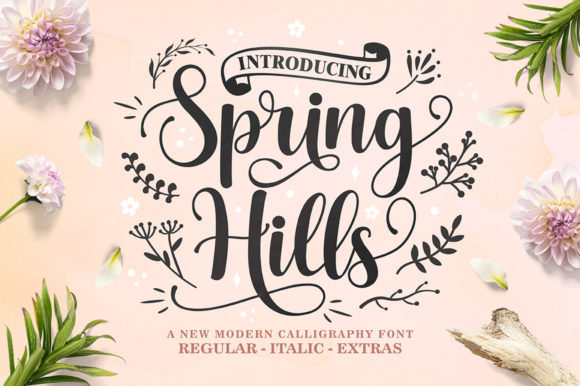
Introducing Spring Hills Font, the epitome of romance and elegance in the world of script fonts. Crafted with meticulous attention to detail, this font is a true work of art. Whether you're designing a website, creating invitations, or adding a touch of sophistication to your branding, Spring Hills is the perfect choice to elevate your creations.
Created by the talented Lettersams, Spring Hills Font is more than just a font – it's a powerful tool that will take your designs to new heights. With its stunning curves and graceful strokes, this font captures the essence of romance and adds a touch of magic to any project.
But what sets Spring Hills apart from other script fonts? Its versatility and attention to detail. This font is carefully designed to enhance any creation, regardless of the topic or theme. Whether you're designing a wedding invitation, a logo for a luxury brand, or a blog post header, Spring Hills will effortlessly add a sense of elegance and beauty.
One of the standout features of Spring Hills is its PUA encoding. This means that accessing all the unique glyphs and swashes is a breeze. With just a few clicks, you can unlock a world of creative possibilities and truly customize your designs. From intricate ligatures to stylish alternates, Spring Hills offers a wealth of options to make your creations truly exceptional.
Imagine the impact Spring Hills will have on your website design. With its romantic and captivating charm, this font will instantly grab your visitors' attention and create a lasting impression. Whether you're designing a landing page, a call-to-action button, or a headline, Spring Hills will ensure that your message is delivered with style and flair.